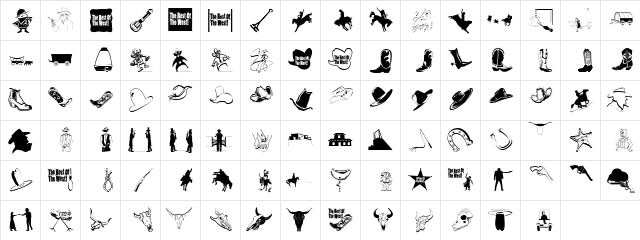
WeLoveAmericasWisdom Regular
Design Context for WeLoveAmericasWisdom Typeface
WeLoveAmericasWisdom is a composed and adaptable typeface that performs quietly and consistently across a wide range of design contexts.